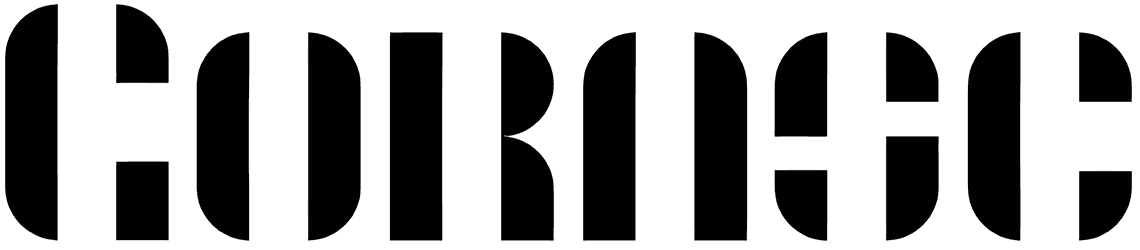
Gorasc Font
Using a unique robot font like the Gorasc font will add an ultramodern vibe to your creative design. The characters are bold, strong, and captivating, and surely, they can give a mesmerizing visual to your projects. Lowe…
Designed byJadatype
Using a unique robot font like the Gorasc font will add an ultramodern vibe to your creative design. The characters are bold, strong, and captivating, and surely, they can give a mesmerizing visual to your projects. Lowercase letters are not available, but this poster font can serve as a distinct choice for many layouts, like an automotive company advertising billboard.